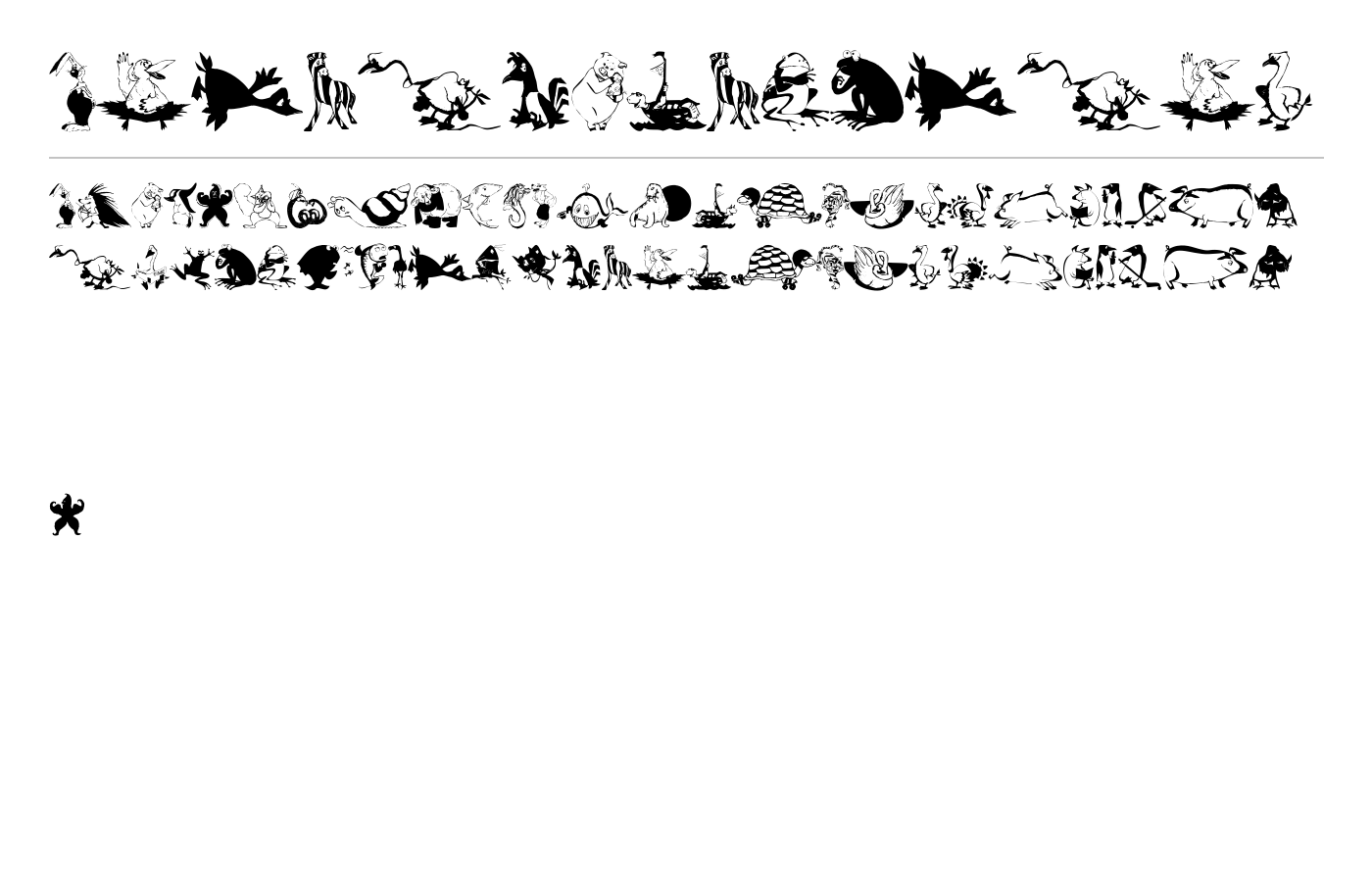
AnimalComedians is a playful and whimsical decorative font that uses detailed black-and-white animal illustrations for each character. This font is highly unique and expressive, making it perfect for creative projects aimed at children, entertainment, or casual themes where a fun, lighthearted tone is desired. Its illustrative style works best in logos, posters, or headlines where memorable, eye-catching visuals are key.
AnimalComedians Font
About AnimalComedians Font